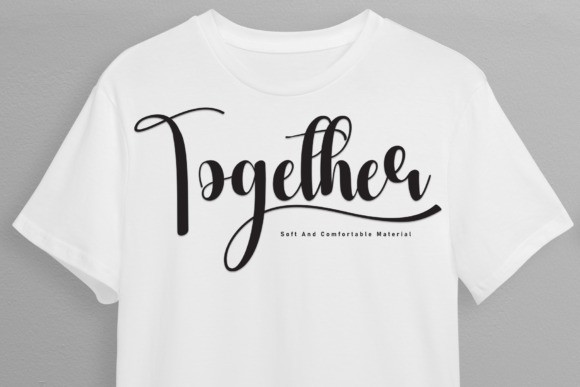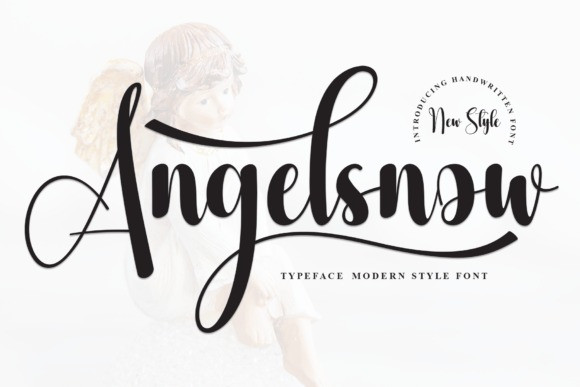
Angelsnow Script Font
Angelsnow Script Font is a sweet and friendly handwritten font. Its natural and unique style makes it incredibly fitting to a large pool of designs. The only limit is your imagination!